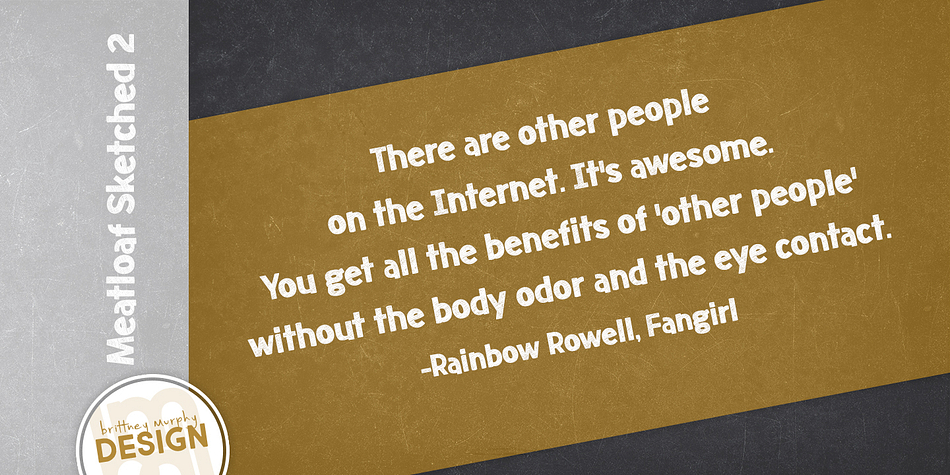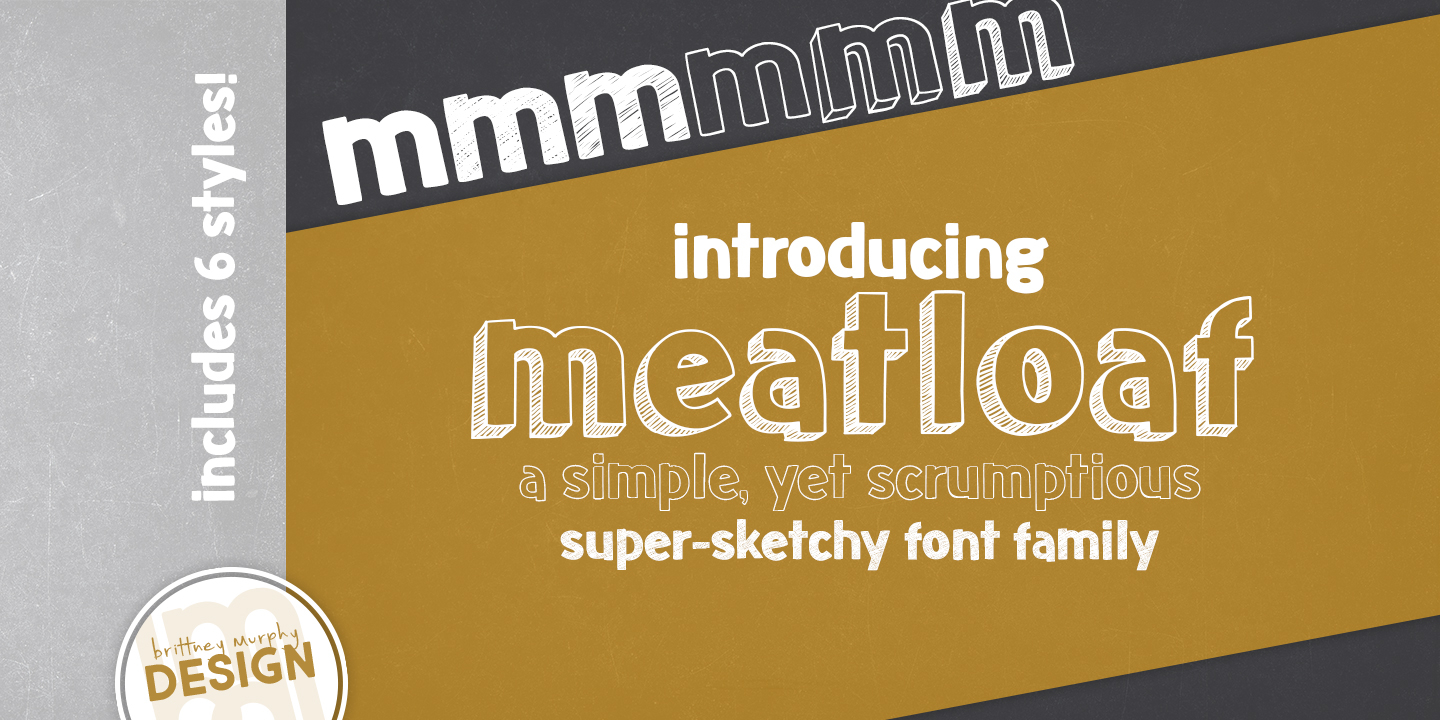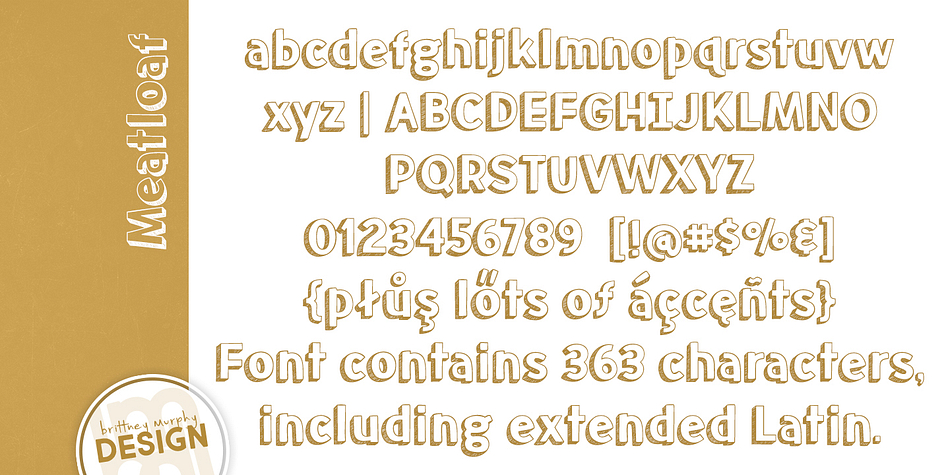
Meatloaf is a hand display font family. This typeface has six styles and was published by Brittney Murphy Design.
Meatloaf is a playful font famiy. Includes six weights!
Each font contains 363 characters, including an extended Latin character set.